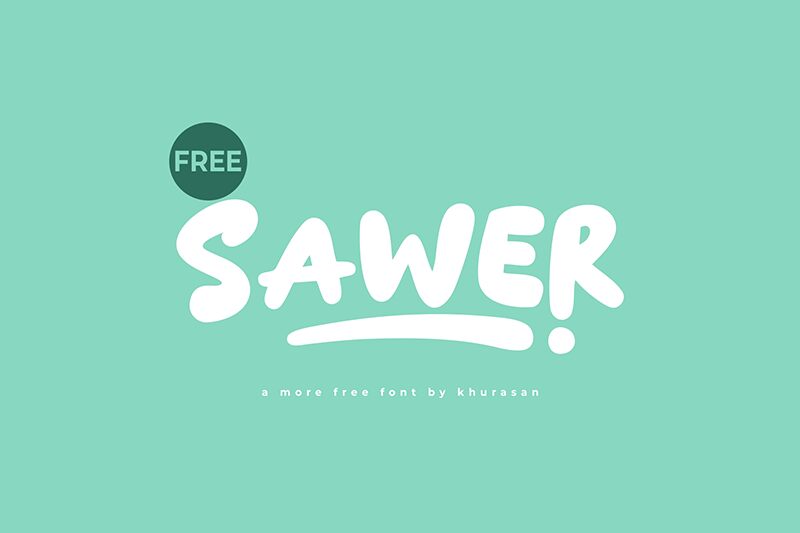
Sawer font by Khurasan is a free cartoon display font with casual rounded strokes, bold weight, and a textured appearance. It has a youthful and expressive character. This dynamic typeface brings an energetic vibe along with a relaxed aesthetic to any project.
This fun font is great for video games, web development, illustrations, comics, school posters, logo designs for kids, toy packaging designs, animated movies/series titles design/production uses of animation/cartoons comedies in general which can make use of the vibrant nature Sawer provides effectively!